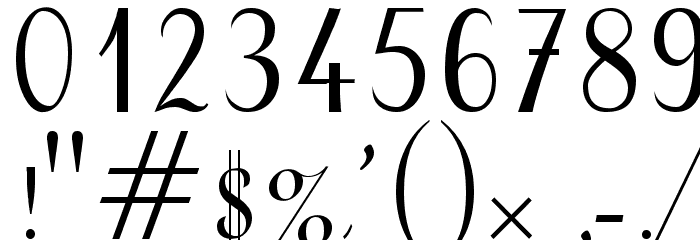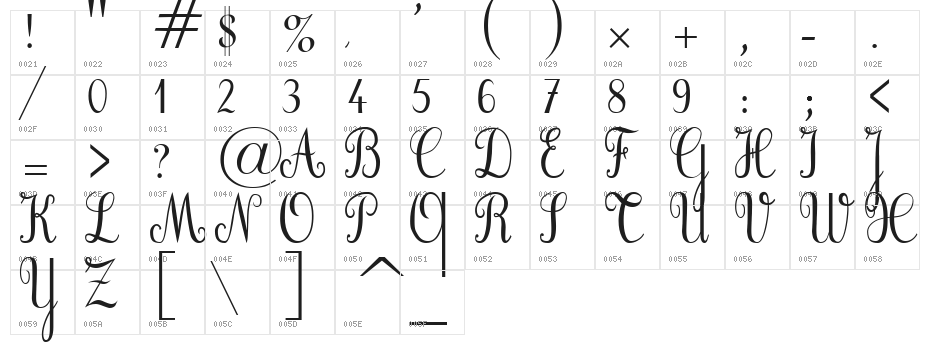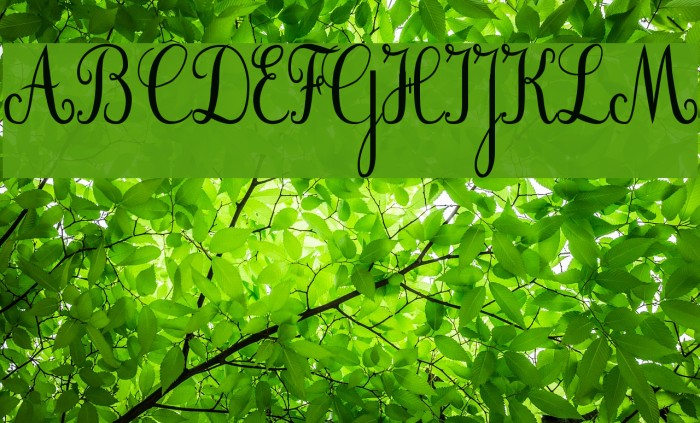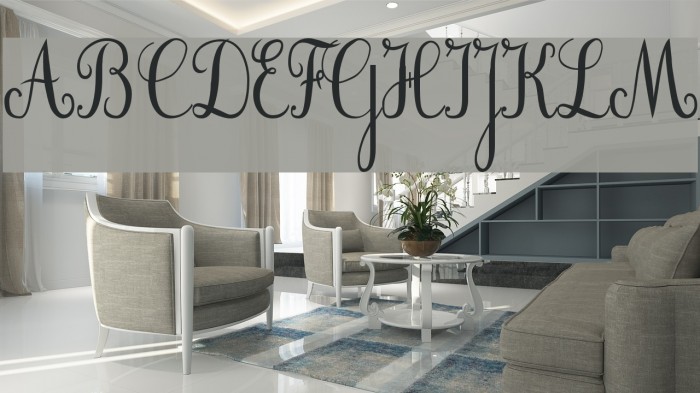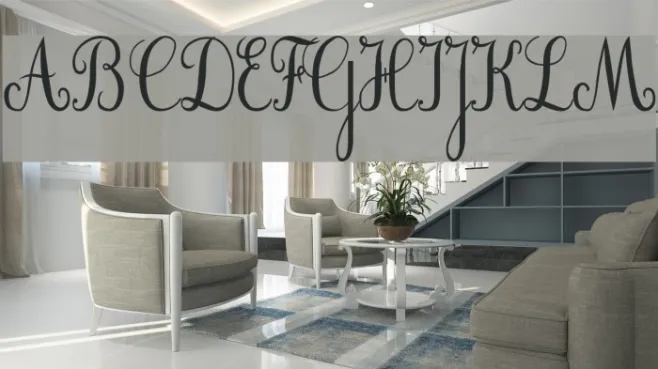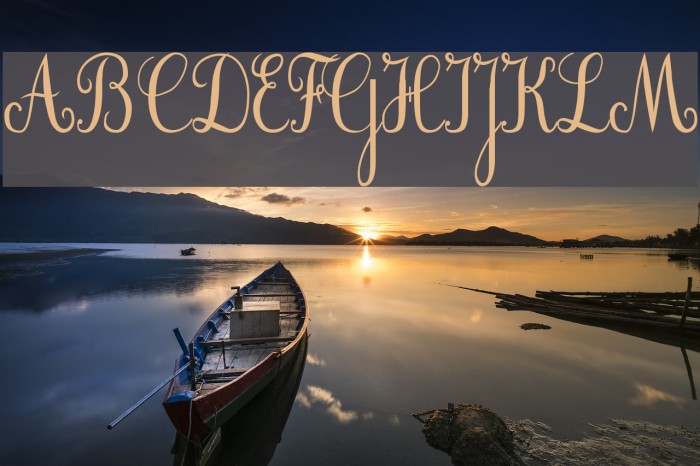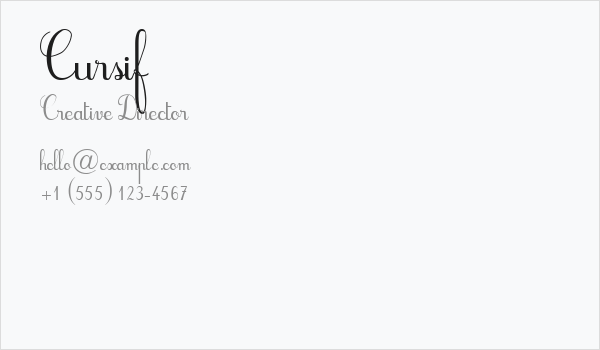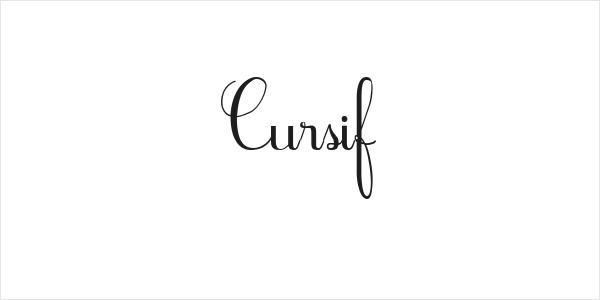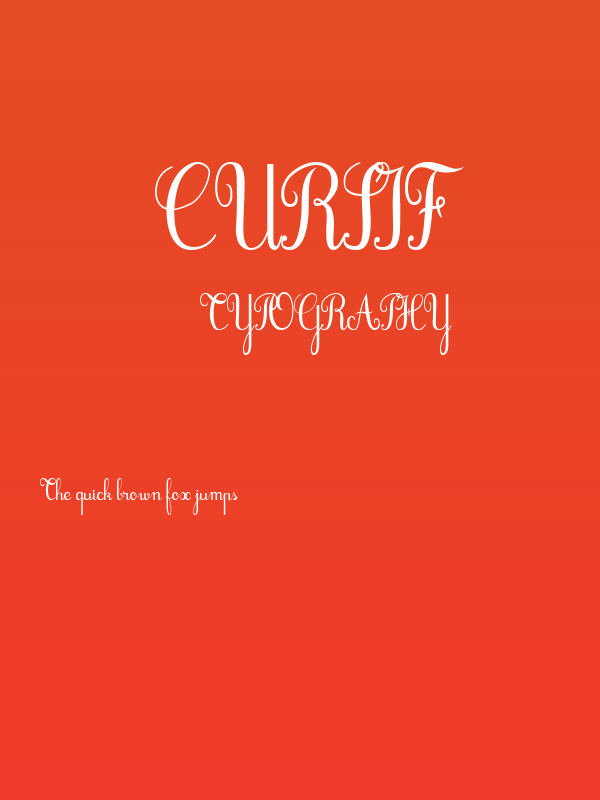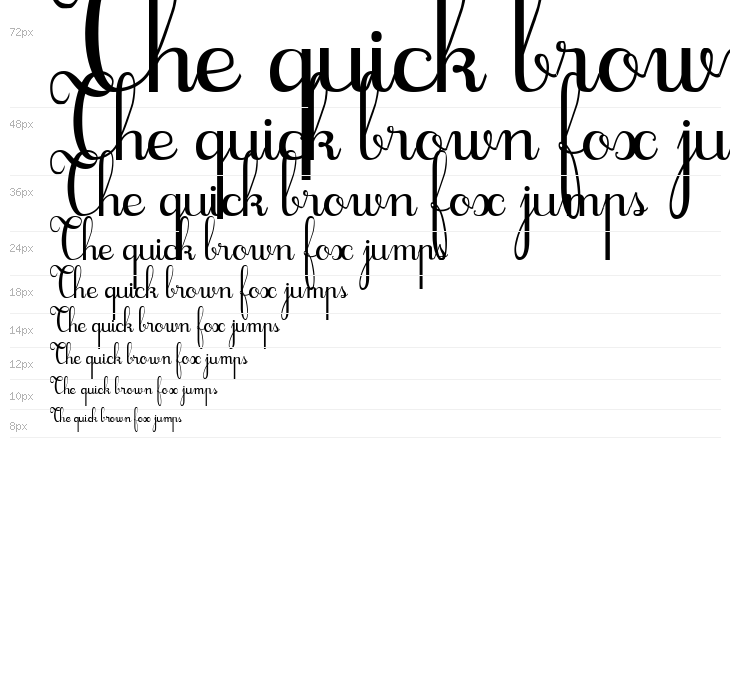
Cursif Font
Cursif Description
This elegant script font features flowing, interconnected letters with a classic cursive style. The uppercase letters are ornate, with intricate loops and swirls that add a touch of sophistication. The lowercase letters maintain a consistent flow, enhancing readability while retaining a decorative flair. Numbers and special characters are designed to complement the overall aesthetic, with smooth curves and balanced proportions. This font exudes a sense of grace and refinement, making it suitable for formal and creative applications.